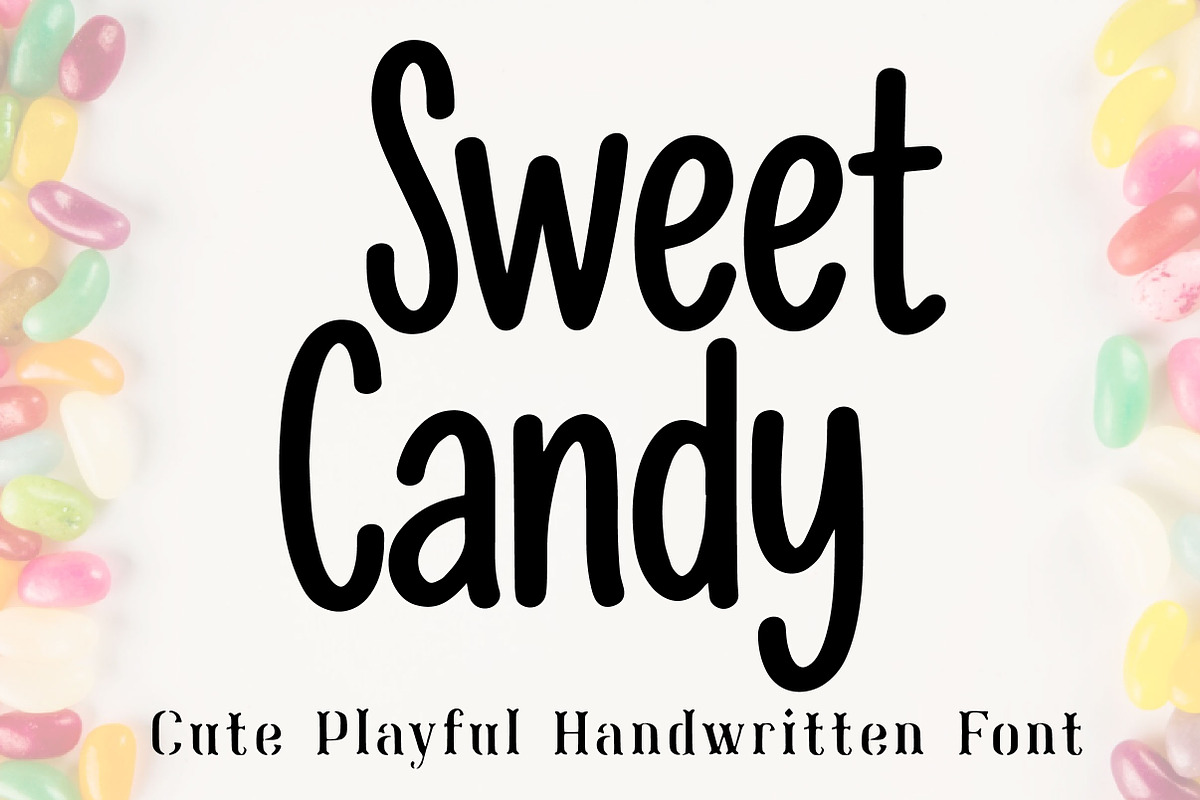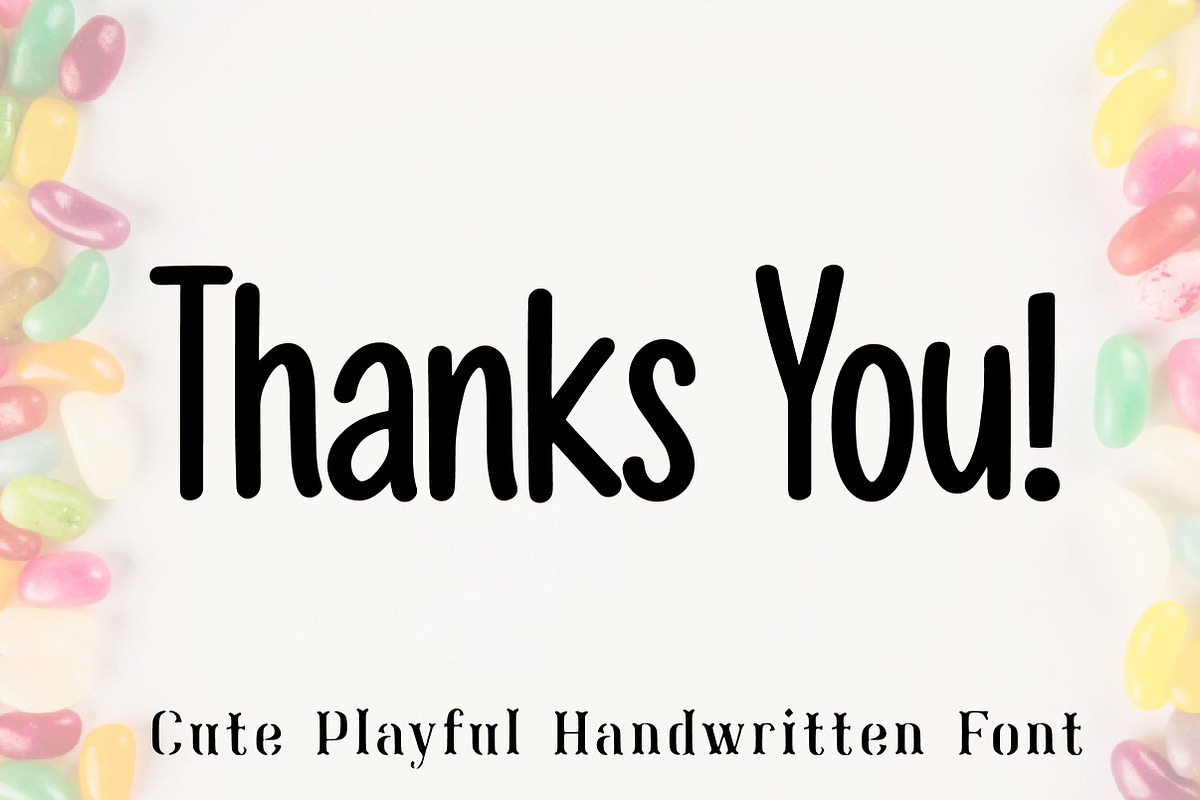
Sweet Candy
Sweet Candy – Cute Playful Handwritten Font
Sweet Candy is a cute and playful handwritten font with a cheerful, sweet, and friendly personality. Its soft curves and rounded letterforms create a fun and lovable look that makes every design feel joyful, charming, and full of happiness.
With its adorable handwritten style, Sweet Candy is perfect for kids’ designs, candy and snack packaging, birthday invitations, greeting cards, party decorations, stickers, social media graphics, and playful branding projects. It adds a delightful handmade touch that makes your designs look warm, fun, and inviting.
This font is a wonderful choice for designers, crafters, and creators who want a typeface that feels cute, lighthearted, and full of character. Whether you are designing for children’s products, sweet-themed packaging, or colorful creative projects, Sweet Candy brings a lovely and cheerful feel to every layout.
Kids’ designs
Candy and snack packaging
Birthday invitations
Greeting cards
Party decorations
Stickers and labels
Playful branding
Handmade creative projects
Cute and playful handwritten style
Soft and rounded letterforms
Sweet, cheerful, and friendly feel
Perfect for fun and colorful projects
Sweet Candy is a cute and playful handwritten font with a sweet and cheerful style. Perfect for kids’ designs, candy packaging, invitations, greeting cards, stickers, and playful branding, it adds a fun handmade touch to any project.